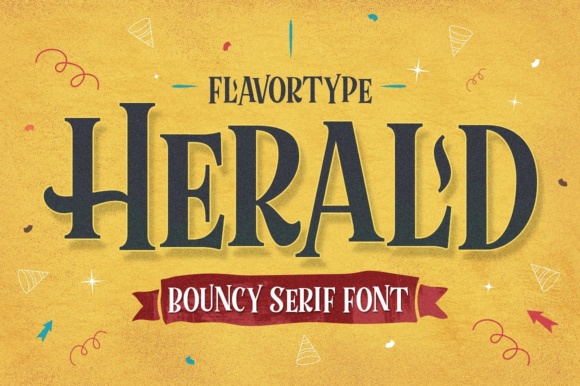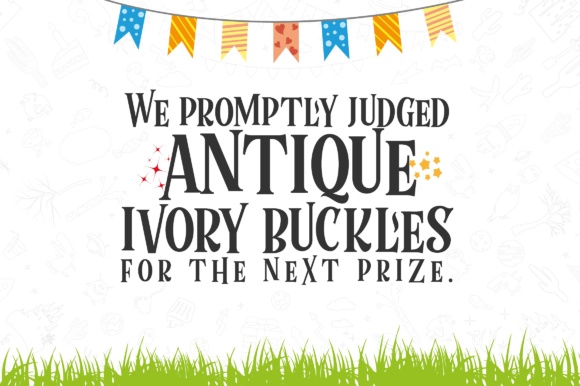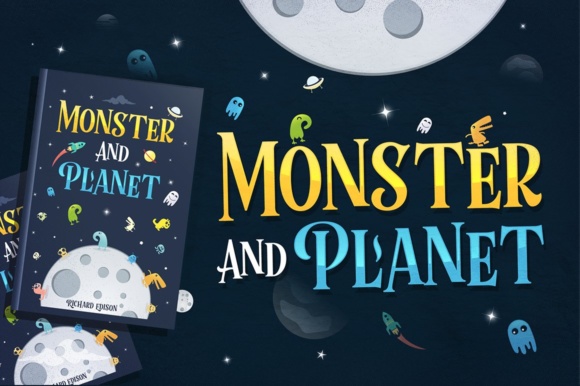
Herald Font: A Whimsical Serif Font for Playful Designs!
About the Herald Font
Presenting Herald Font, a unique and stylish typeface that will make your work stand out. Herald is a geometrically designed serif font with a bouncy baseline so it has a truly whimsical, storybook appeal! This font can give your designs a light-hearted, fun, eclectic, or impish appeal; this font packs an atmospheric punch no matter what the design!
Herald excels in display applications such as headlines, logos, and short-form text on posters or packaging. Its playful energy makes it ideal for children’s products, whimsical brands, or projects requiring a lighthearted feel. However, its bouncy baseline and decorative serifs make it less suitable for body text or UI elements where readability is paramount. Long paragraphs set in Herald would be visually overwhelming and difficult to read.
Pairing Herald effectively requires considering its inherent whimsy. A clean sans-serif like Open Sans or Lato provides a strong contrast and enhances readability when used alongside Herald in headlines and subheadings. For a more playful approach, a rounded geometric sans-serif could complement its bouncy character. Conversely, a classic serif like Garamond might add a touch of unexpected sophistication.
Herald’s core personality is undeniably playful and whimsical, yet with an underlying boldness. This makes it a versatile choice for projects needing a fun yet impactful visual identity.